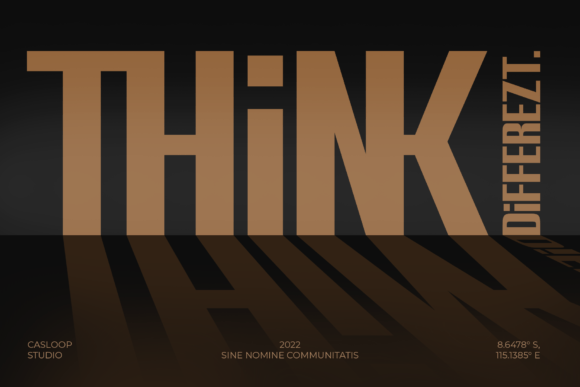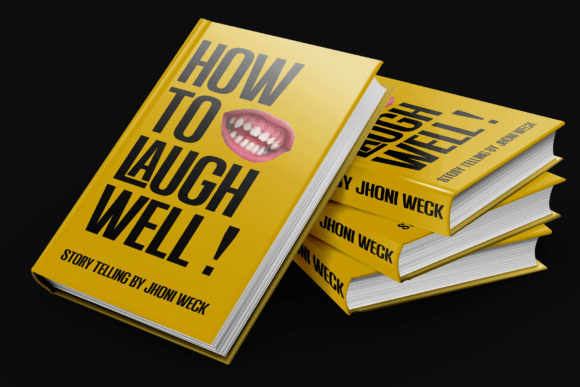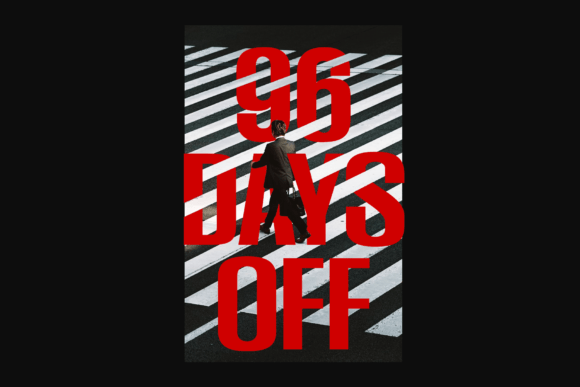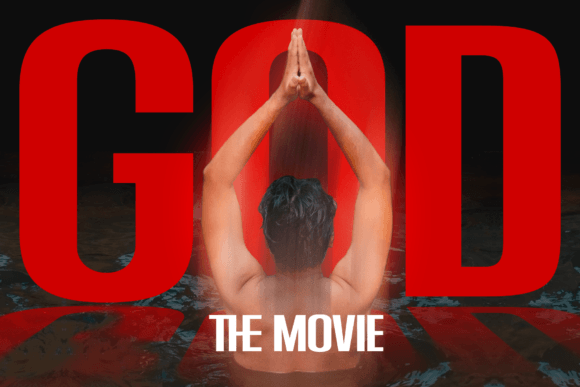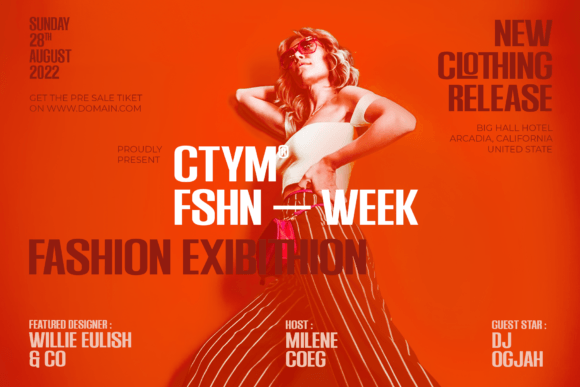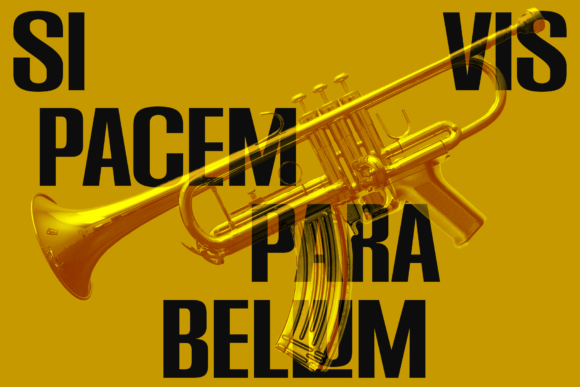
Cas Drumhead Font: Elevate Your Designs with a Cool and Fresh Display Font
In the world of typography, a font can make or break a design. It’s the perfect blend of style, elegance, and personality that can elevate a project from ordinary to extraordinary. If you’re a designer or crafter looking for a font that embodies coolness and freshness, look no further than Cas Drumhead Font. This display font is designed to enhance the beauty of your projects, and in this article, we’ll dive into its features, benefits, and uses.
What is Cas Drumhead Font?
Cas Drumhead Font is a modern display font that strikes the perfect balance between style and versatility. It’s not too thin and not too thick, making it an ideal choice for designers who want to add a touch of sophistication to their projects without overpowering them. This font is carefully crafted to provide a unique and distinctive look that’s sure to grab attention.
Key Features of Cas Drumhead Font
- Balanced and Varied: Cas Drumhead Font boasts a balanced and varied design that makes it perfect for a wide range of projects, from posters and brochures to websites and social media graphics.
- Cool and Fresh: This font exudes a cool and fresh vibe that’s sure to appeal to designers and crafters who want to add a modern twist to their designs.
- Display Font: Cas Drumhead Font is specifically designed as a display font, making it perfect for headlines, titles, and other attention-grabbing elements.
- Easy to Read: Despite its stylish design, Cas Drumhead Font remains easy to read, even at smaller sizes.
Benefits of Using Cas Drumhead Font
So, why should you choose Cas Drumhead Font for your next project? Here are just a few benefits of using this amazing display font:
- Adds Visual Interest: Cas Drumhead Font adds a touch of visual interest to your designs, making them more engaging and attention-grabbing.
- Versatile: This font is versatile enough to be used in a wide range of projects, from print materials to digital graphics.
- Unique and Distinctive: Cas Drumhead Font has a unique and distinctive look that’s sure to set your designs apart from the crowd.
- Easy to Pair: This font pairs well with a variety of other fonts, making it easy to create harmonious and visually appealing designs.
Uses of Cas Drumhead Font
Cas Drumhead Font is a versatile display font that can be used in a wide range of projects, including:
- Posters and Flyers: Add a touch of style and sophistication to your posters and flyers with Cas Drumhead Font.
- Brochures and Catalogs: Use this font to create eye-catching headlines and titles that grab attention.
- Websites and Social Media Graphics: Add a modern twist to your website and social media graphics with Cas Drumhead Font.
- Logos and Branding: This font can also be used to create unique and memorable logos and branding elements.
| Font Name | Cas Drumhead Font |
| Author | Casloop |